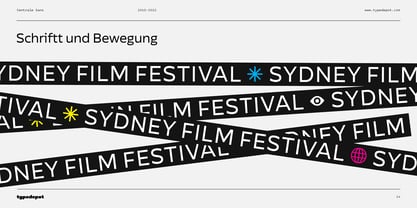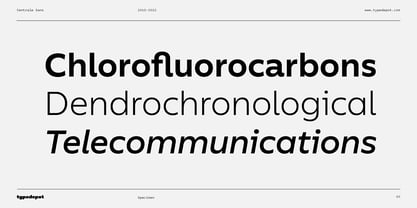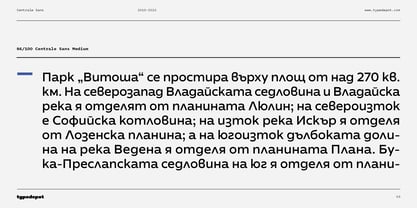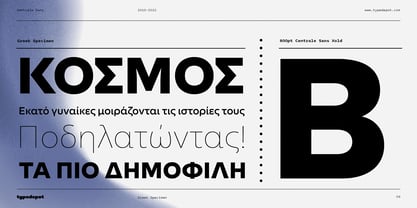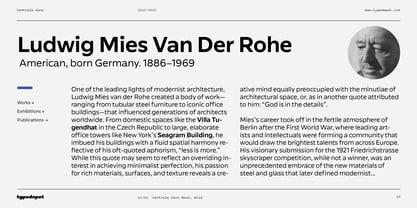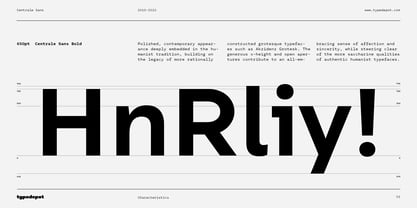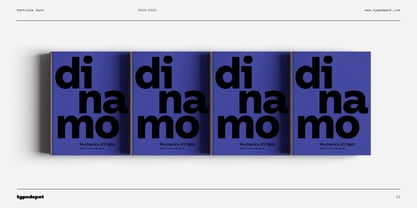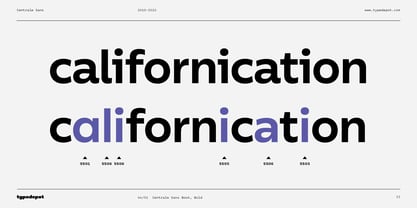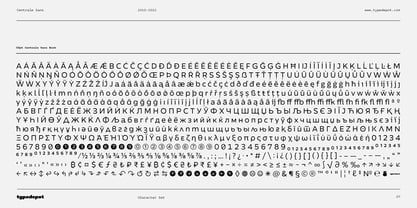
Centrale Sans
by Typedepot
Centrale Sans Font Family was designed by Alexander Nedelev, Veronika Slavova and published by Typedepot. Centrale Sans contains 18 styles family package options.
With a warm and harmonious presence, Centrale Sans is more than just another modern sans serif typeface. Driven by its geometric nature, but distinguished through a multitude of humanistic features, it remains versatile due to the inclusion of open bowls and an extended width - an all-around workhorse for both small and large text sizes!
Centrale Sans offers a polished, contemporary appearance deeply embedded in the humanist tradition, but also builds on the legacy of more rationally constructed grotesque typefaces such as Akzidenz Grotesk. The generous x-height and open apertures contribute to an all-embracing sense of affection and sincerity, while steering clear of the more saccharine qualities of authentic humanist typefaces.
Featuring nine weights ranging from Hairline to Extra Bold and matching italics to boot, Centrale offers a robust and powerful package with a myriad of OpenType features, including tabular figures, fractions, and stylistic alternatives.
At the intersection of functionality and refined elegance, it is one of our most popular creations, used by brands like Philips, Brita, Elle Decor and Shape magazine for both print and web use.
Over the past few years, our team has been hard at work in a quest to further improve this already jam-packed bundle, and its fourth version comes with a wide assortment of revisions and upgrades. For starters, we took the time to analyze each glyph to better balance its contrast and outlines.
Centrale Sans now comes with Greek support in addition to the Extended Cyrillic and Latin, with a whole new set of arrows, manicules and currency symbols.
About Typedepot
Typedepot co-founders Alexander Nedelev and Veronika Slavova say, “In the beginning, Typedepot was a side project, nothing serious – just experimenting with letterforms. Then, in a moment it just felt more right to do this than anything else.” Based in Sofia, Bulgaria, the duo first came upon type design while working as graphic designers in advertising. “We had absolutely no background in type design,” Alexander says, “but we had this project, a logotype for a small company, which we developed to become the Glide typeface.” Two years later they rented an office, took the plunge and started designing type full time. “Now it’s the thing we do and the thing we love to do.” So far they’ve seen great success with Best Seller Centrale Sans. The modern sans serif typeface was featured as one of MyFonts Most Popular Fonts of 2011 and was featured in our Rising Stars Newsletter that same year. The self-taught designers whose foundry started out as a way to experiment with type, say that their main focus is “to design original typefaces for retail and custom use.”